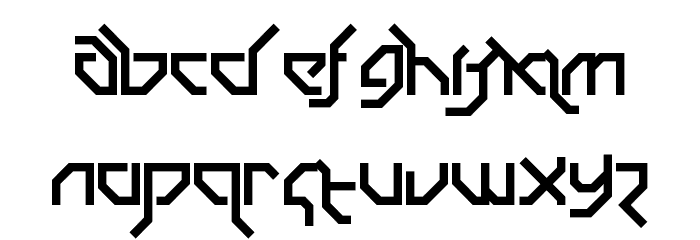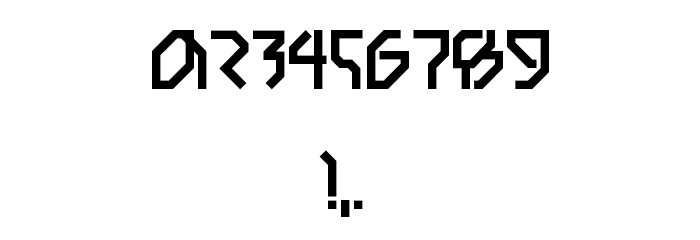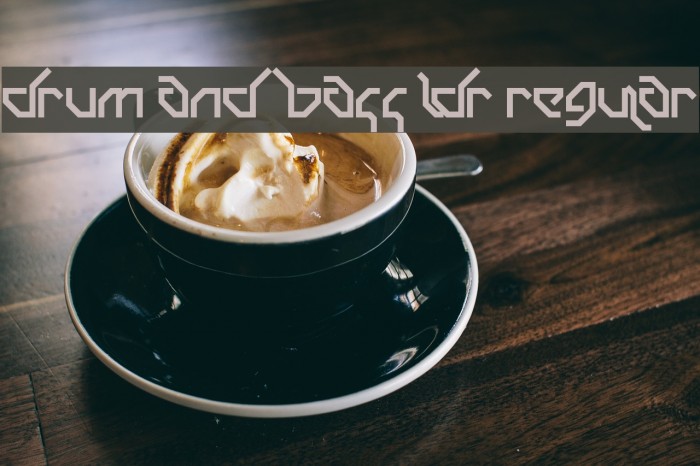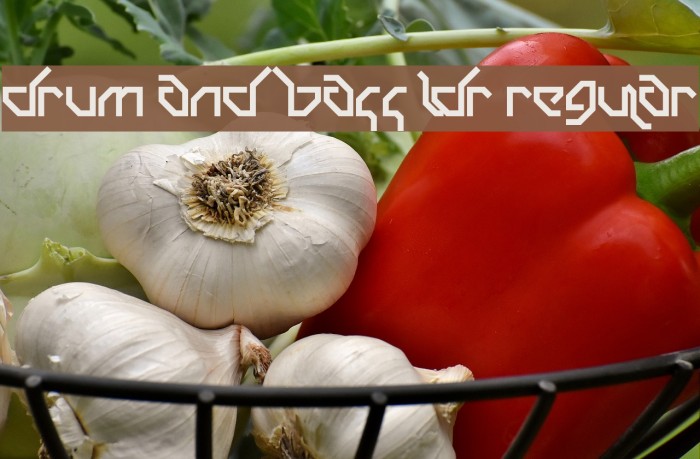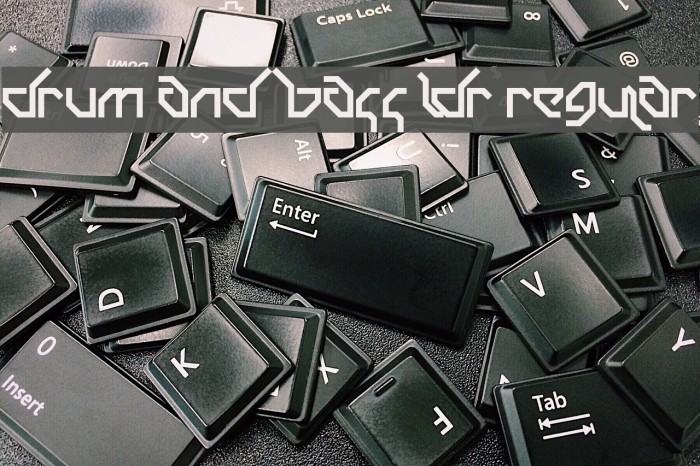
Drum and Bass LDR Regular Font
This font features a bold, geometric style with sharp angles and a futuristic aesthetic. The characters are constructed with consistent line thickness, giving it a uniform appearance. The design is reminiscent of digital or electronic themes, making it suitable for modern and tech-oriented projects. The uppercase and lowercase letters share similar structural elements, enhancing the cohesive look. Numbers and special characters maintain the same angular design, ensuring visual harmony across all elements.
A bold, geometric font with a futuristic and digital aesthetic.
- Proposed Projects: Ideal for tech branding, electronic music album covers, video game interfaces, and futuristic-themed posters.